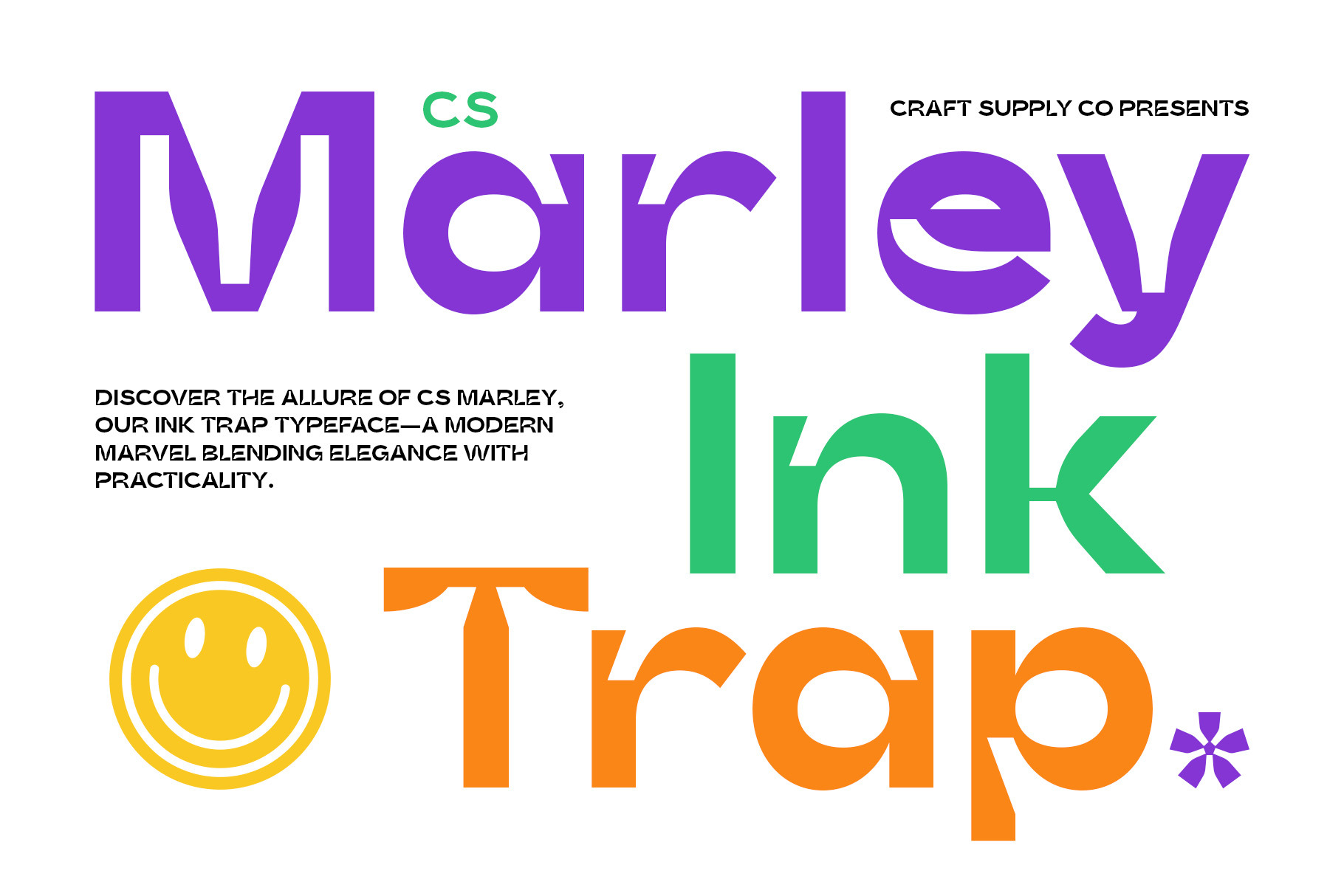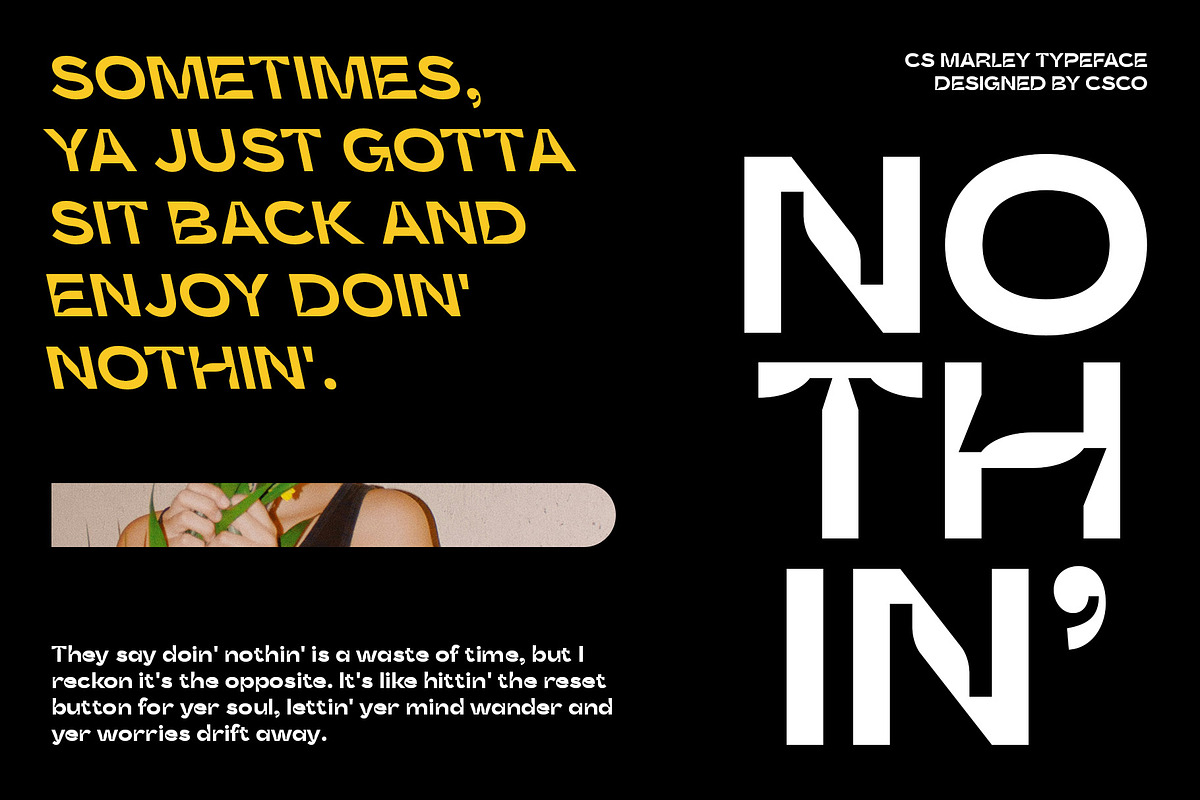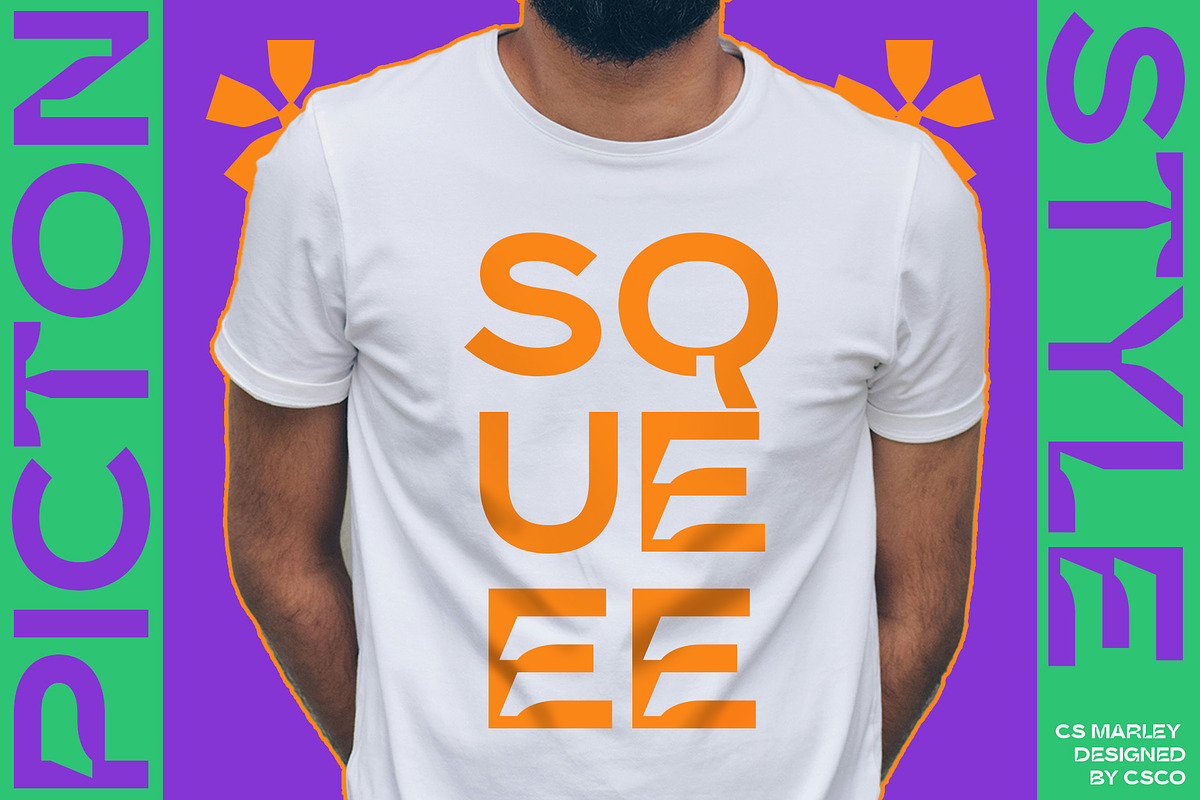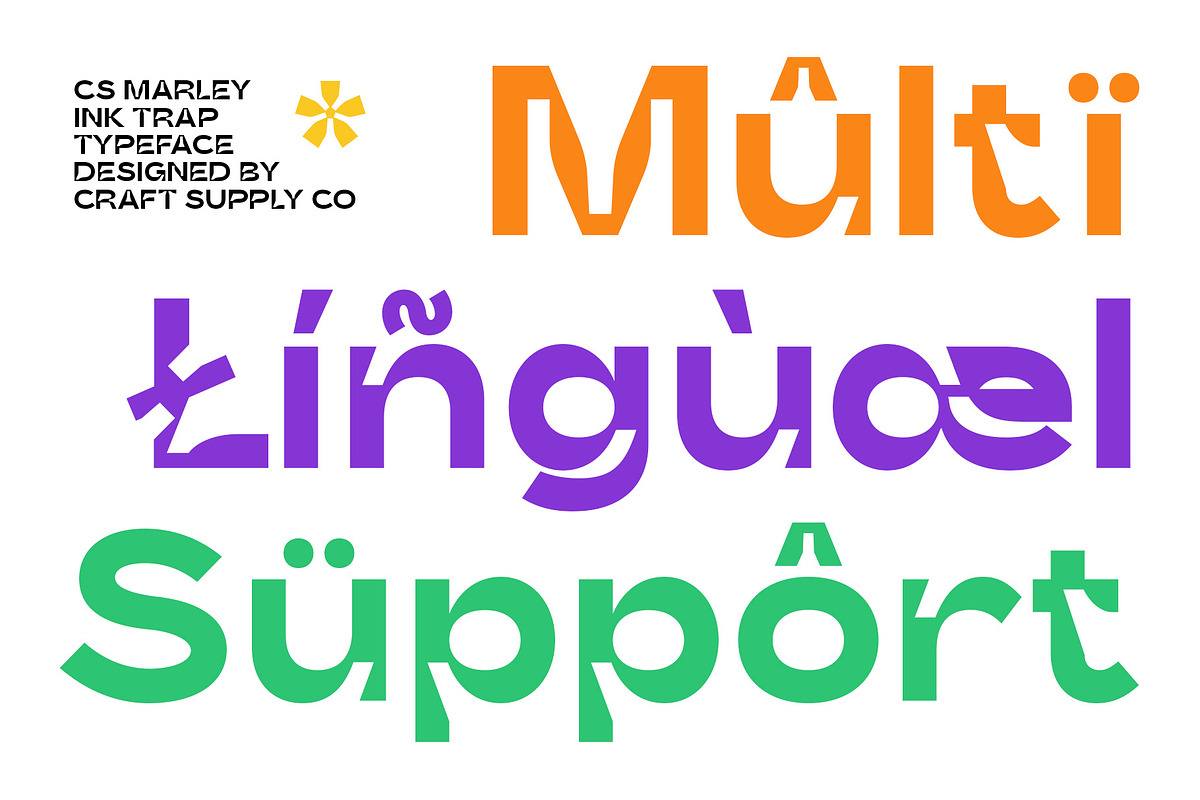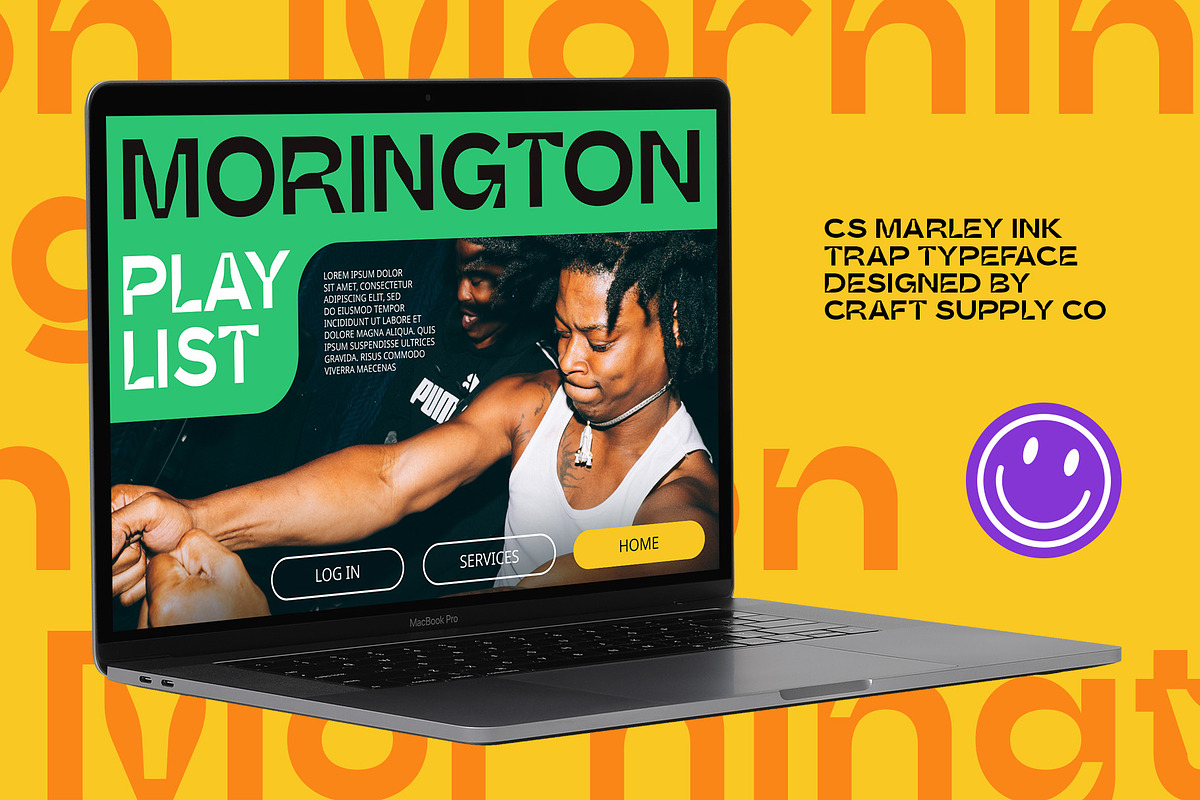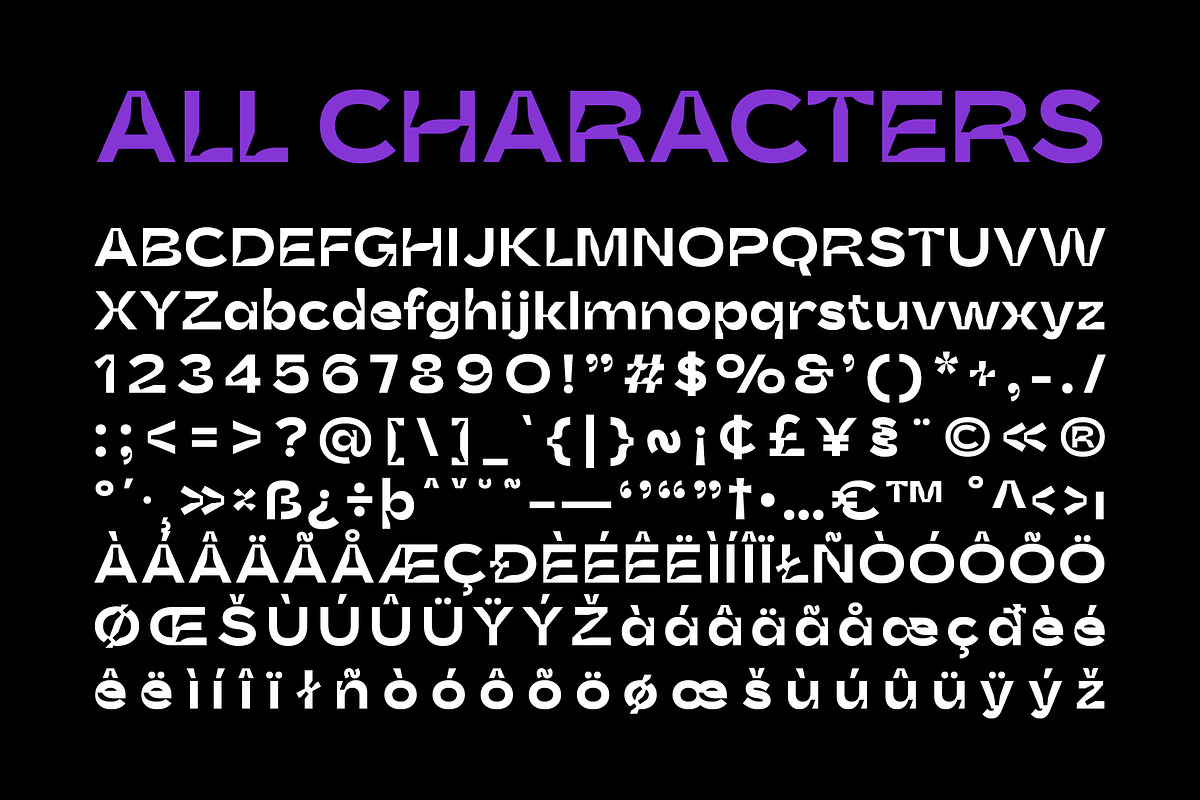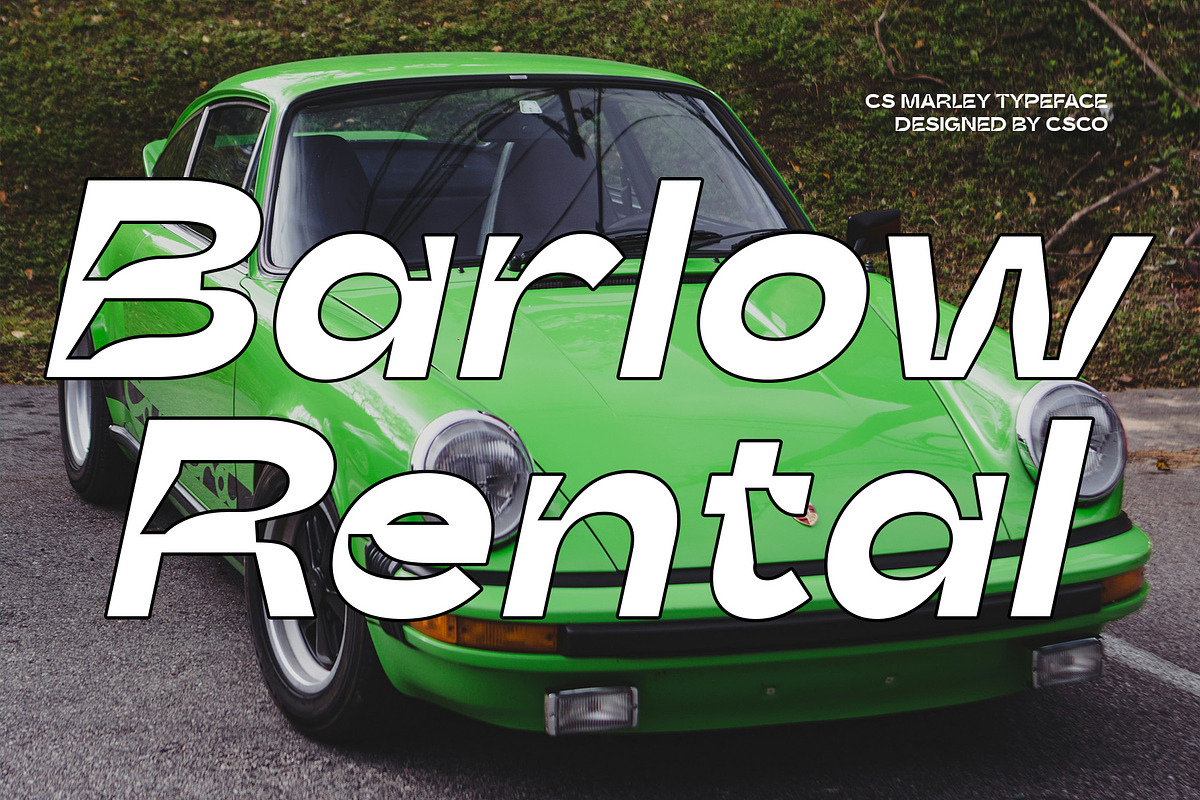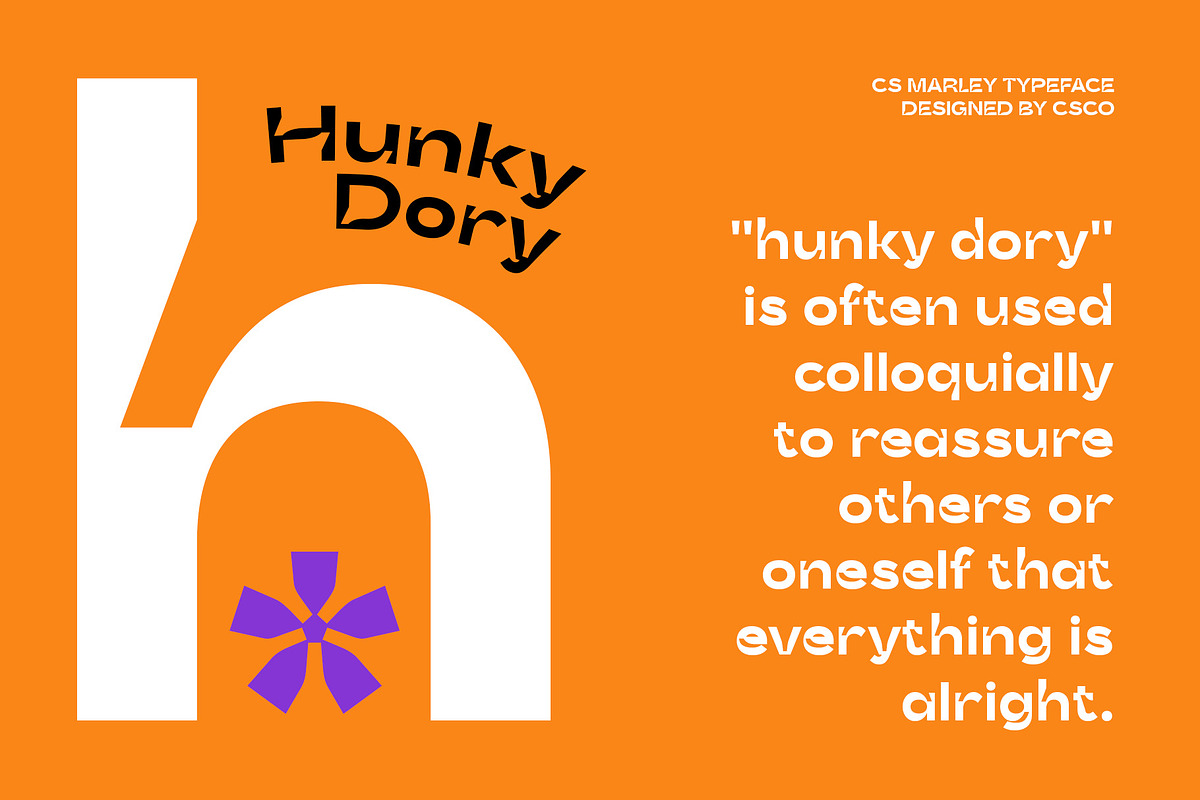
CS Marley – Inktrap Font
CS Marley – Inktrap Font: Expressive Characters with a Funky Twist
Introduction CS Marley is a modern sans-serif font with inktrap features and a funky vibe. This font is perfect for designs that aim to emphasize unique and expressive characters, adding a playful and creative touch to any project.
Modern Sans-Serif Design CS Marley features a clean and modern sans-serif design, making it ideal for contemporary designs. Its inktrap features add depth and character to the font, giving it a unique and expressive look.
Inktrap Features for Added Character The inktrap features in CS Marley emphasize the corners and fine details of the letters, adding depth and character. This feature gives the font a funky vibe that is perfect for designs that want to stand out and make a statement.
Ideal for Expressive Designs CS Marley is suitable for designs that aim to be unique and expressive. Whether you’re designing posters, logos, or branding materials, this font can help you create designs that are bold and eye-catching.
Enhance Your Designs with CS Marley With its modern sans-serif design and funky vibe, CS Marley can add a playful and creative touch to any design. Whether you’re aiming for a fun and quirky look or something more expressive and unique, this font can help you achieve your design goals.